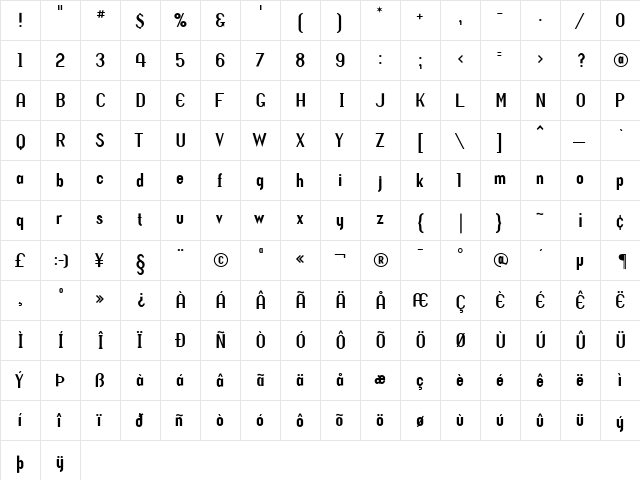
Revival Medium
Design Context for Revival Typeface
Revival offers clean, dependable letterforms without strong stylistic allegiance, making it a practical choice for designers who need flexibility.